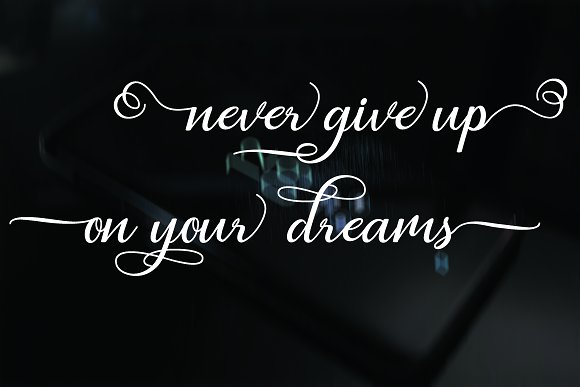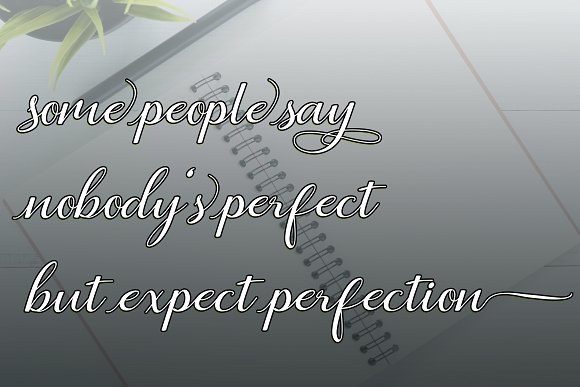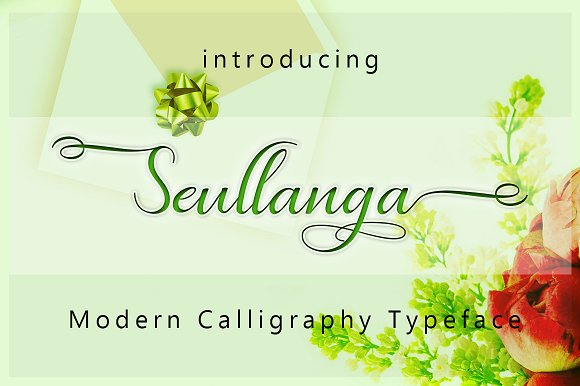
Seullanga Script Font
Seullanga Script a new fresh & modern script with a handmade calligraphy style, decorative characters and a dancing baseline! So beautiful on invitation like greeting cards, branding materials, business cards, quotes, posters, and more!!